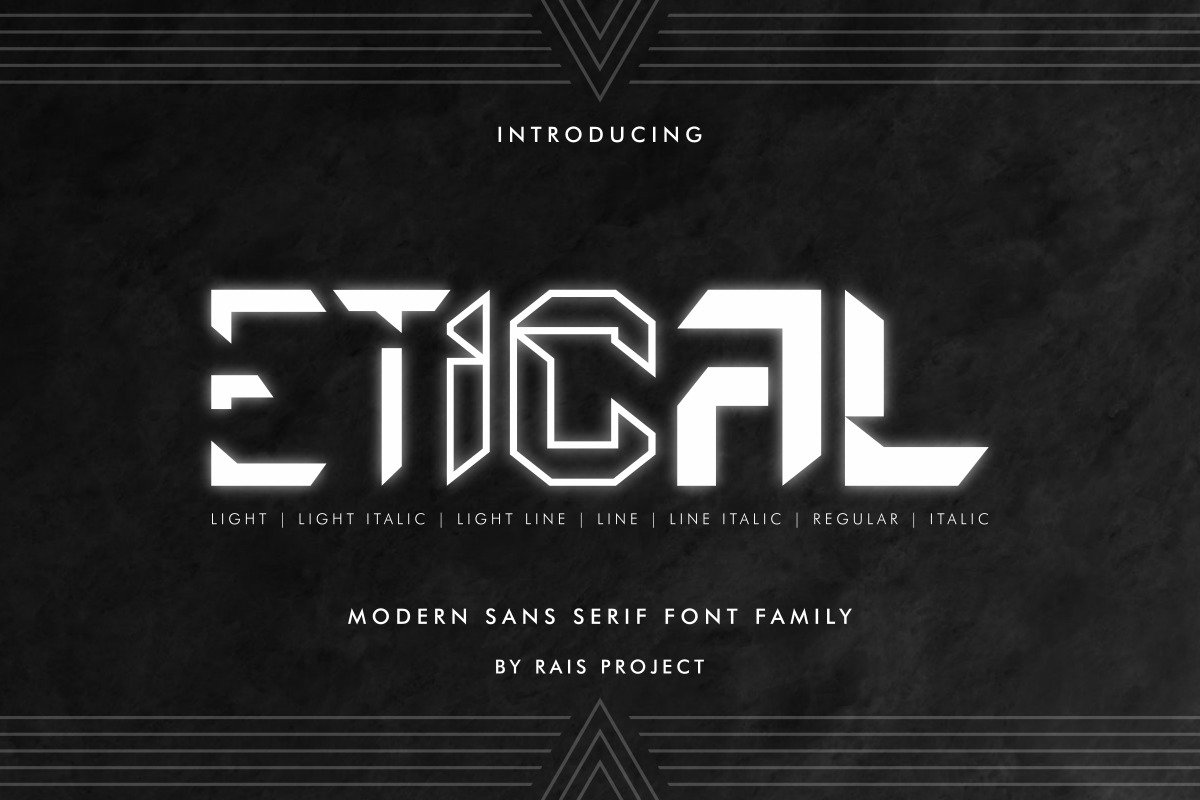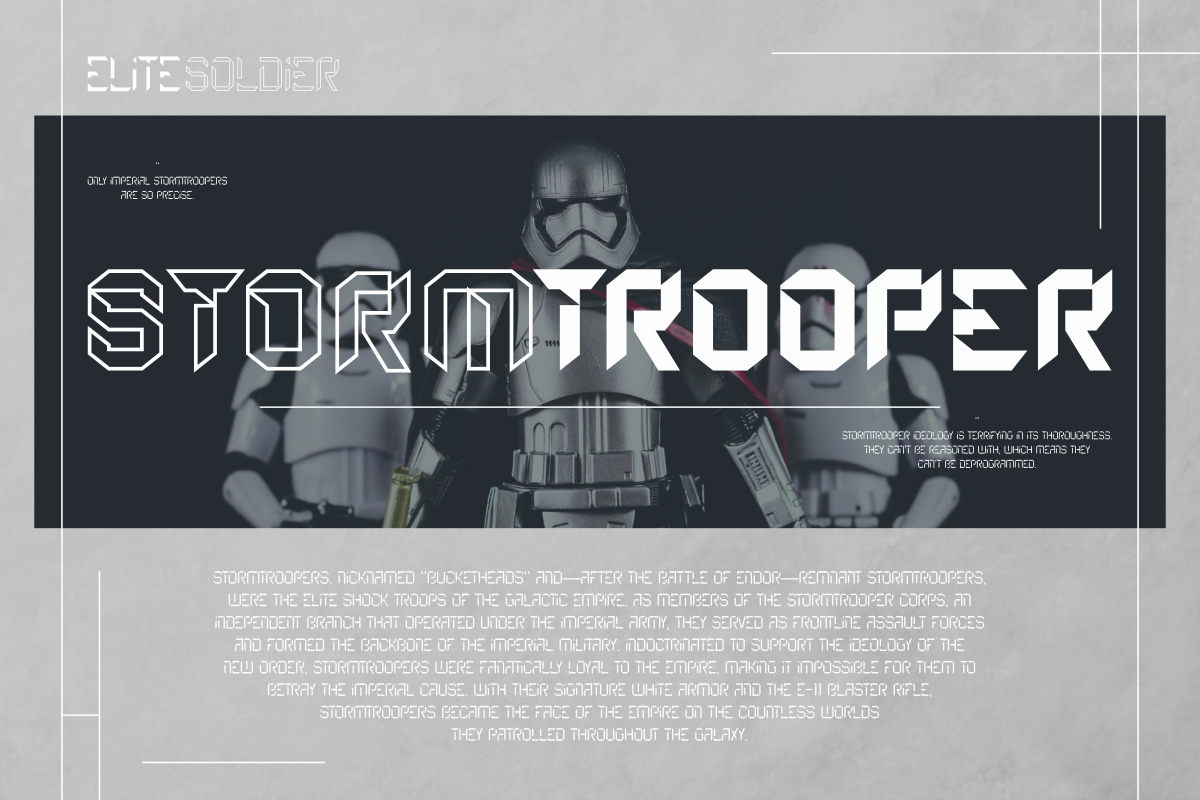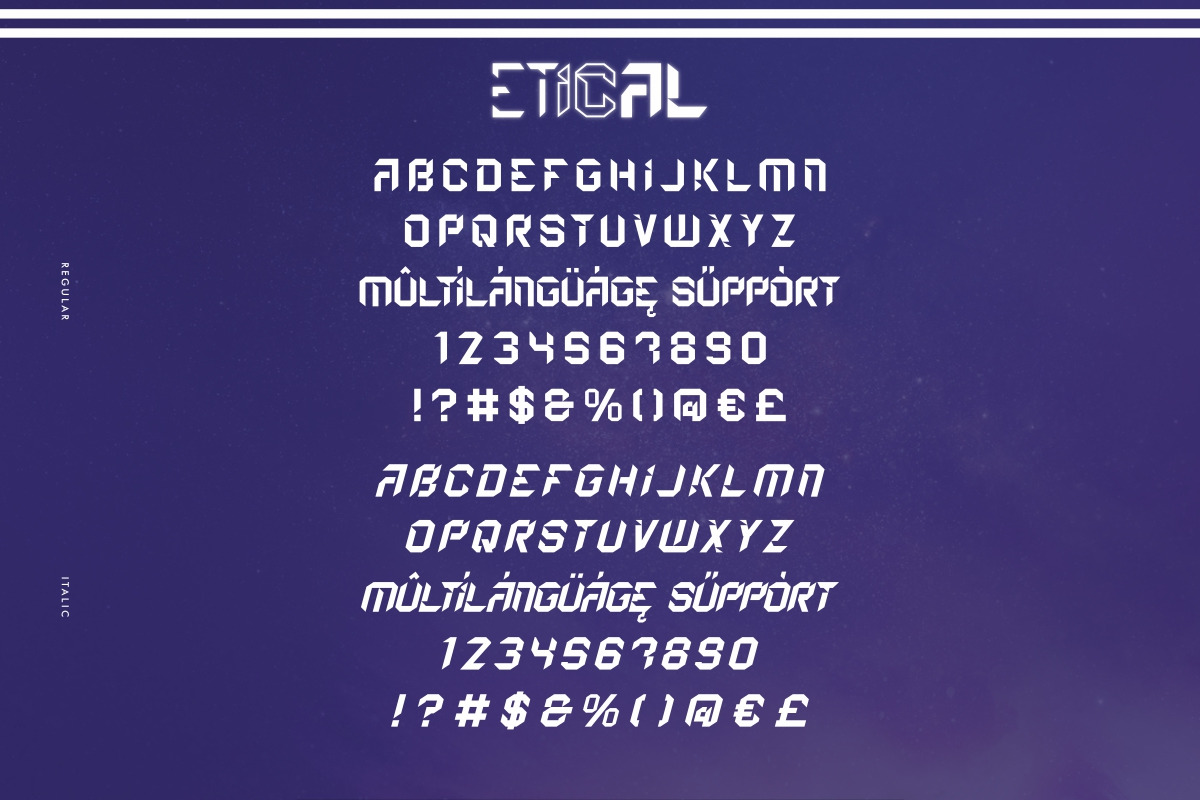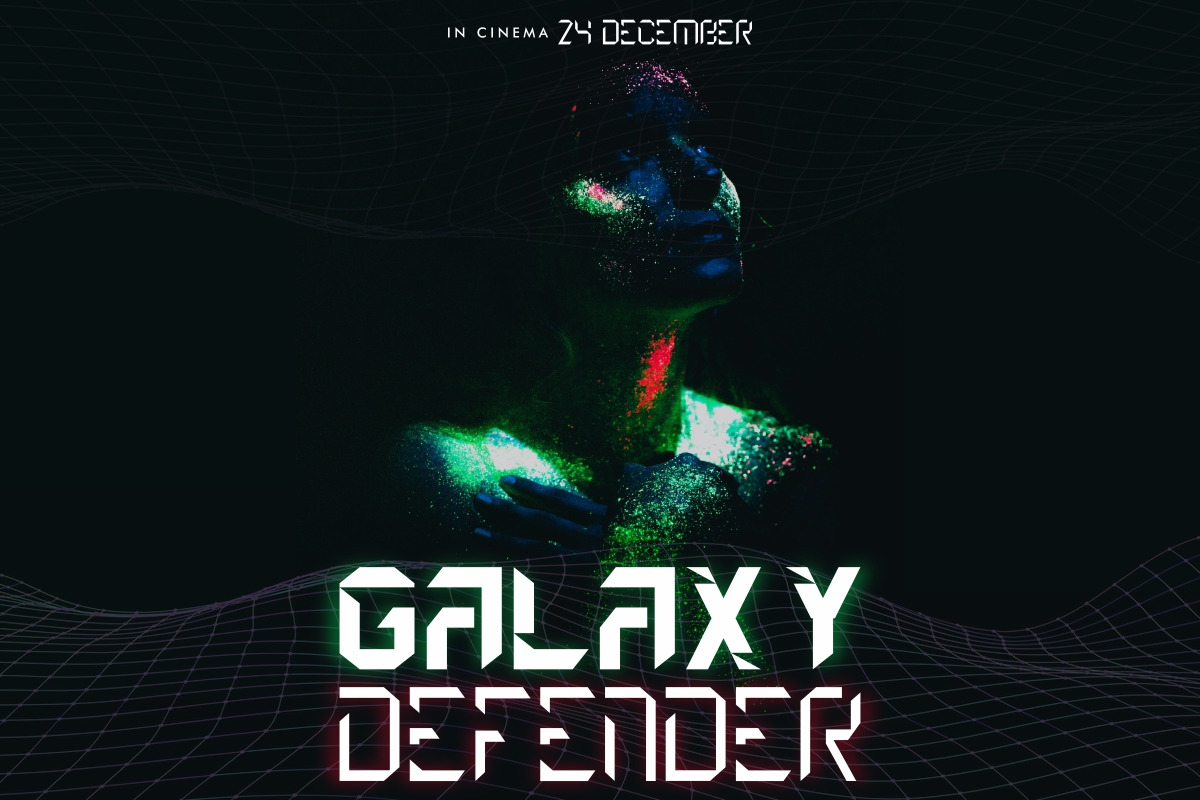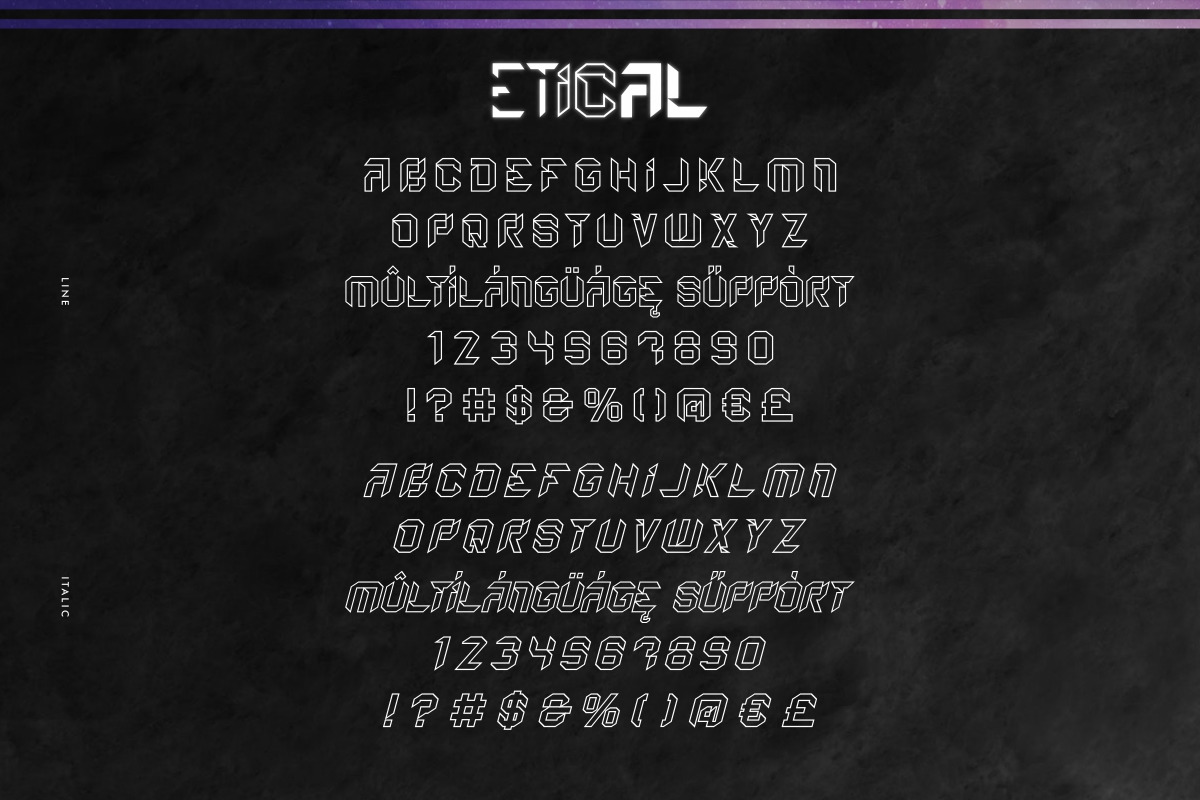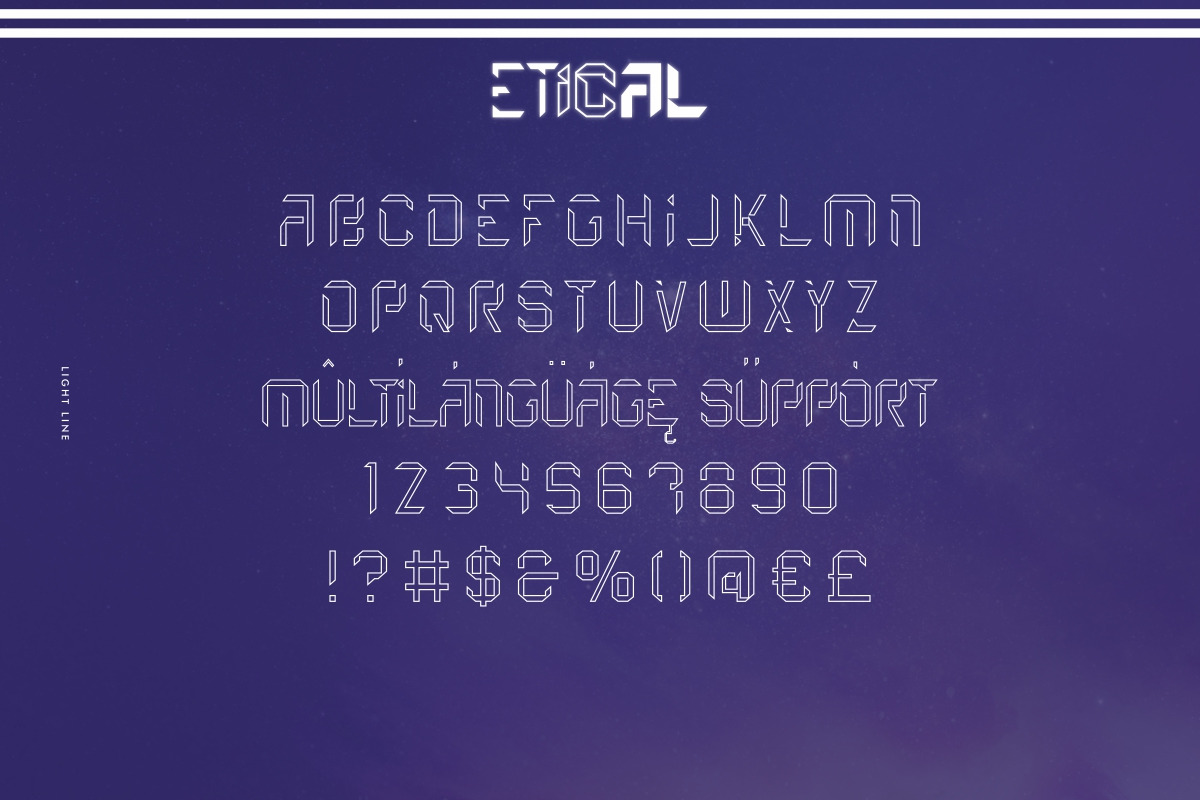
Etical Sans Serif Display Font
Etical Font is a display decorative sans serif font family. It has clean, modern and stylish style. The font has six different styles that great for many projects that need unique strong style.